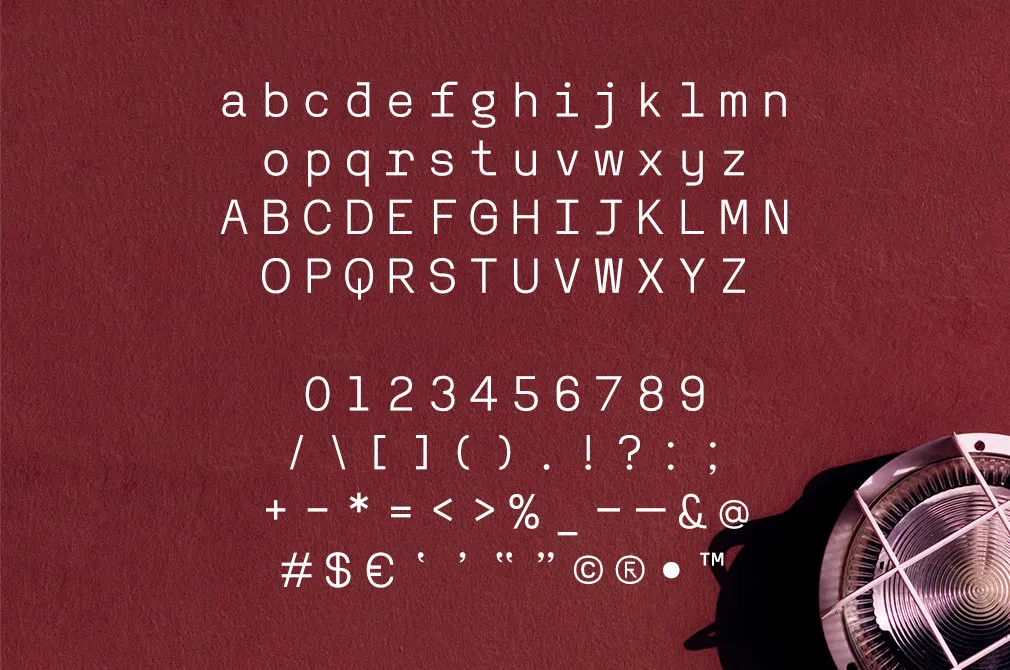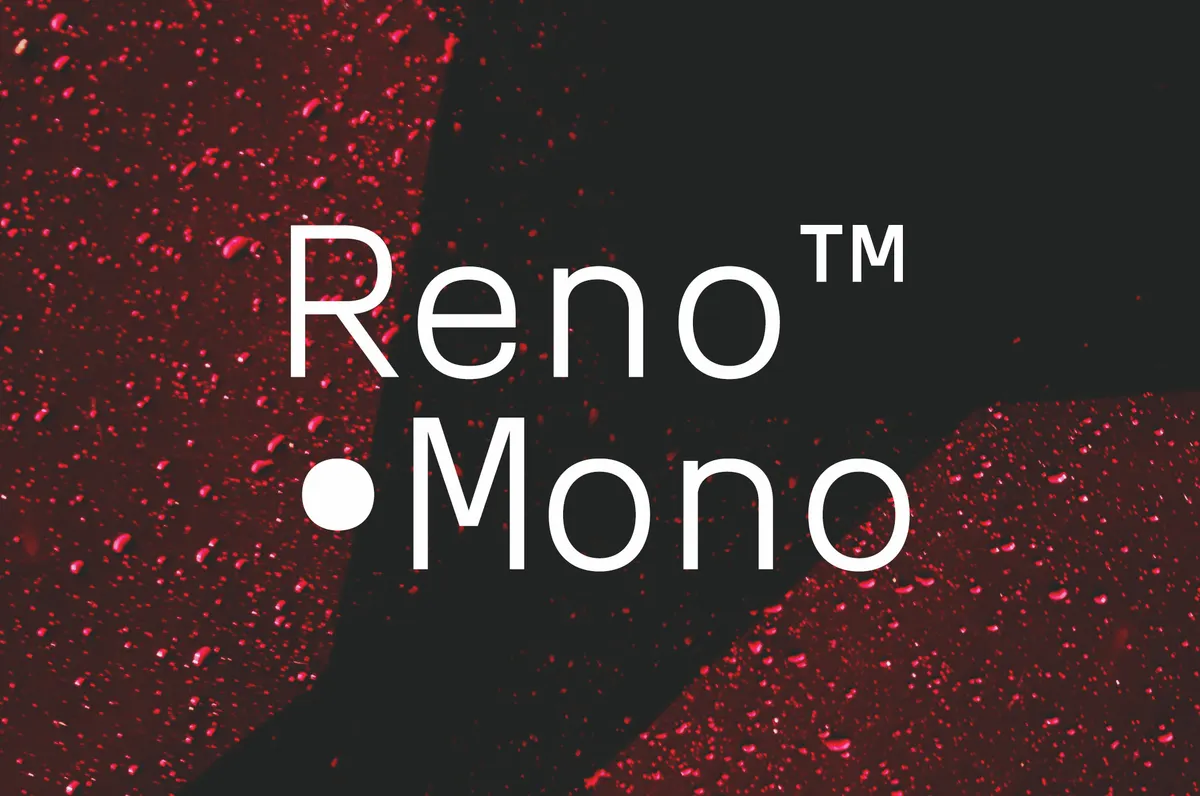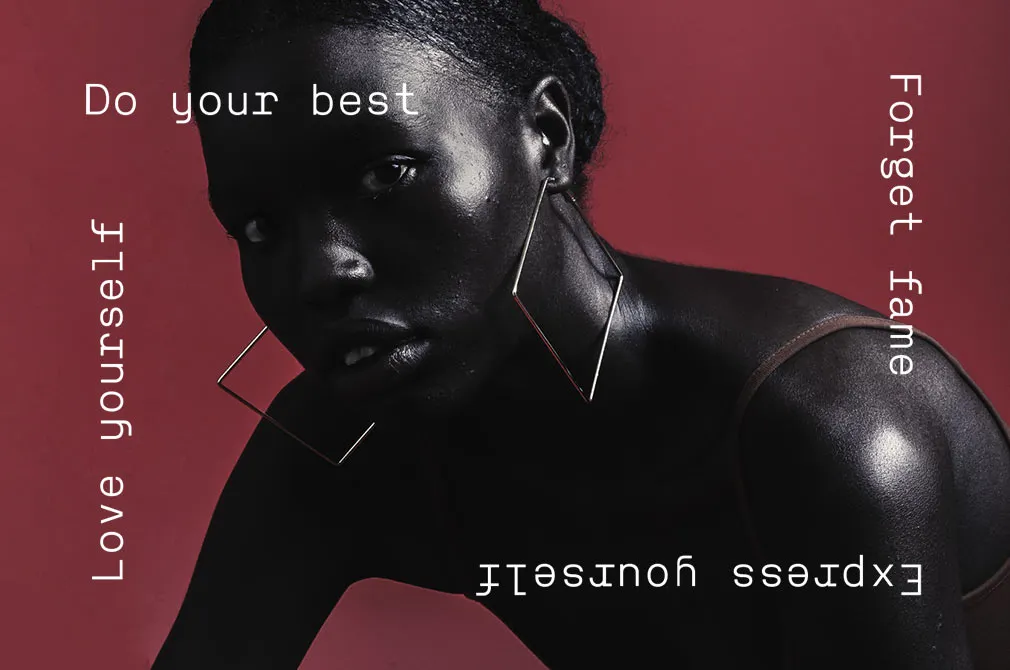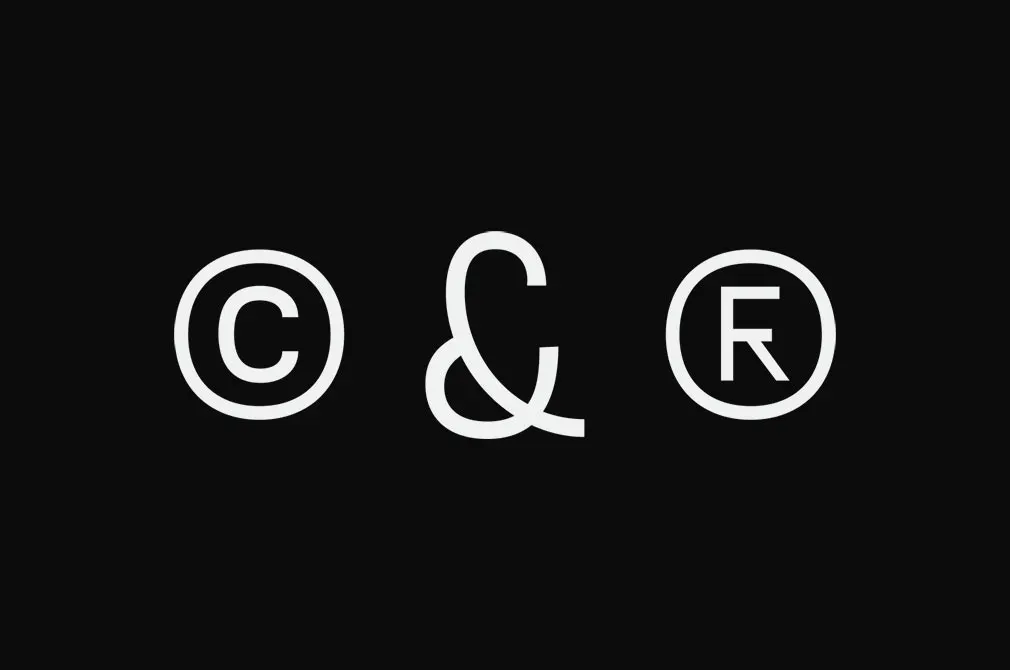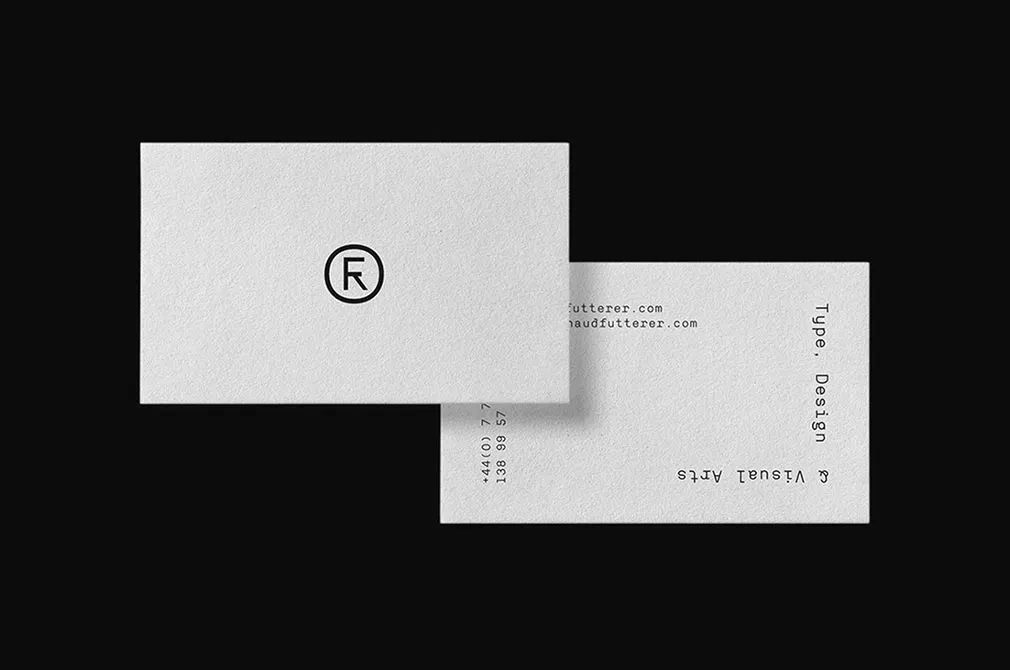
Reno Mono Typeface
Present you a free, regular fixed-width machine font designed to be used as a web font while also providing a memorable retro feel when printed on paper. Classic and modern twists merged!
This minimal and contemporary font contains a very simple yet sharp set of Latin characters. Symbols are stripped down singularly to keep a recognizable minimal feel. The style and composition make the font look like a typewriter's heritage in our digital world. Being suitable for any purpose, Reno Mono is your universal tool for tons of projects!